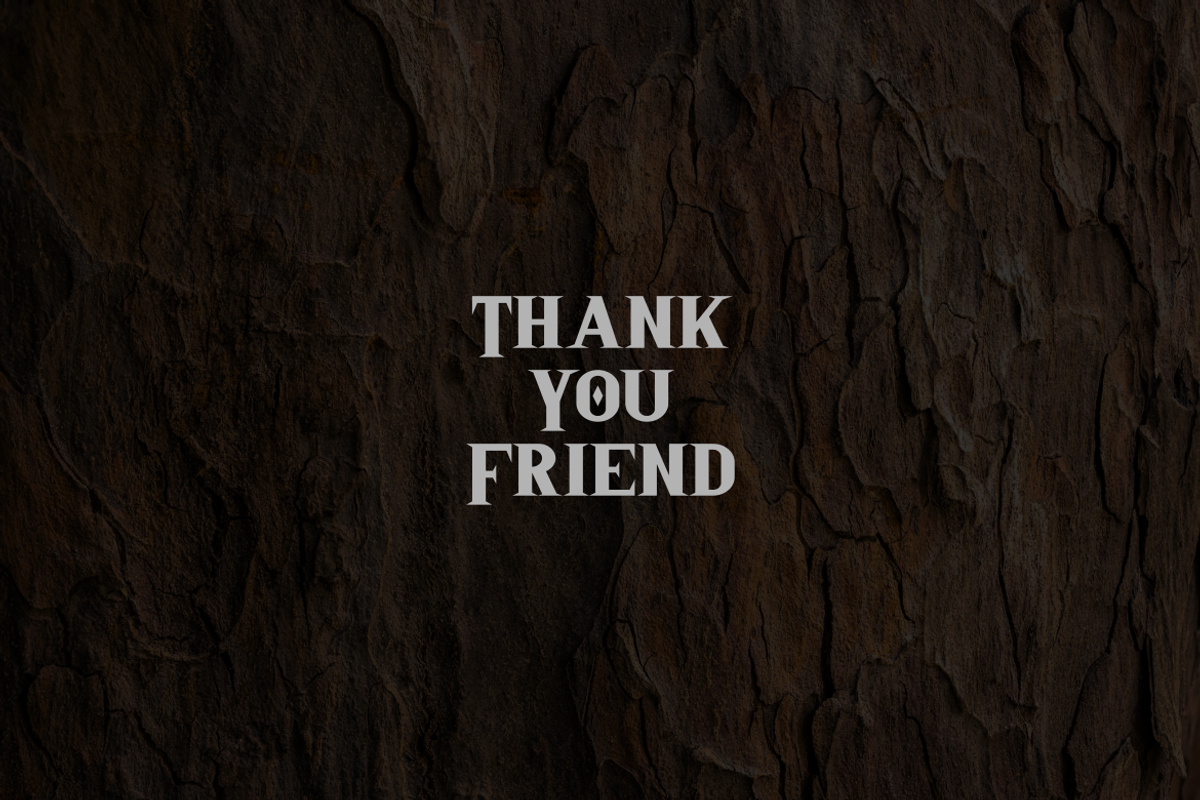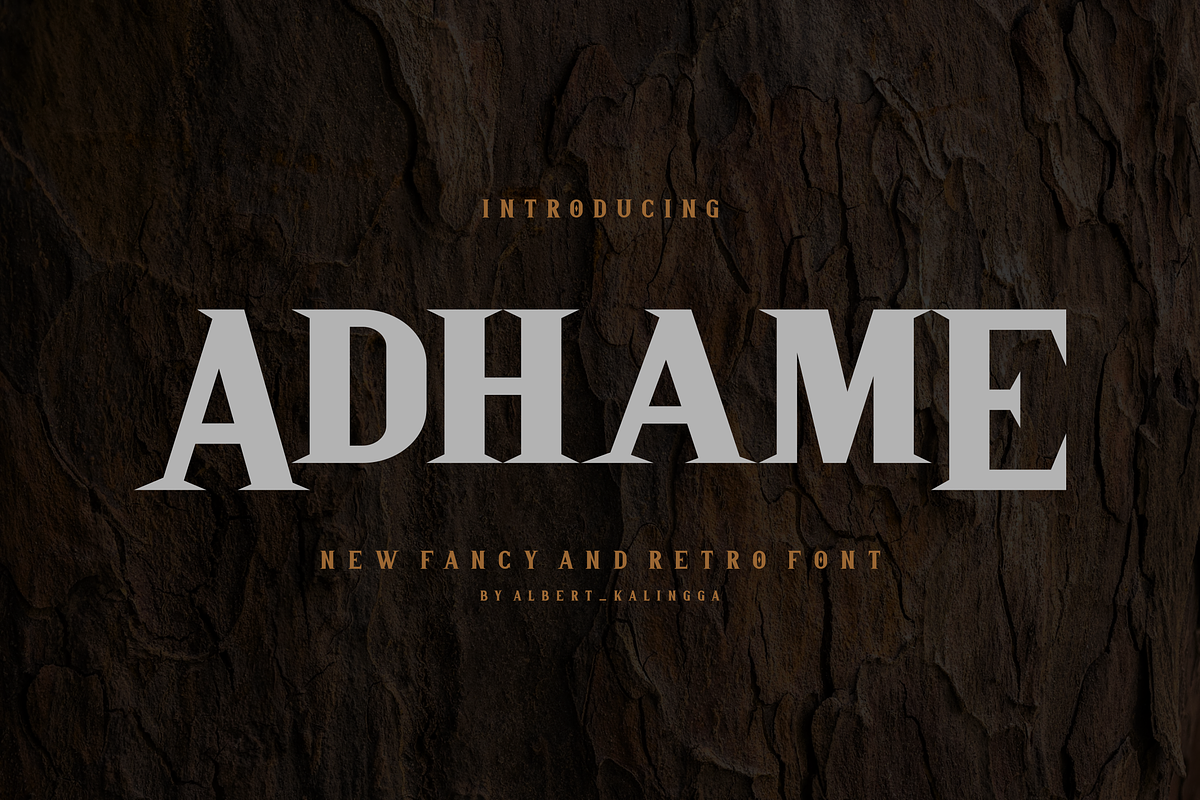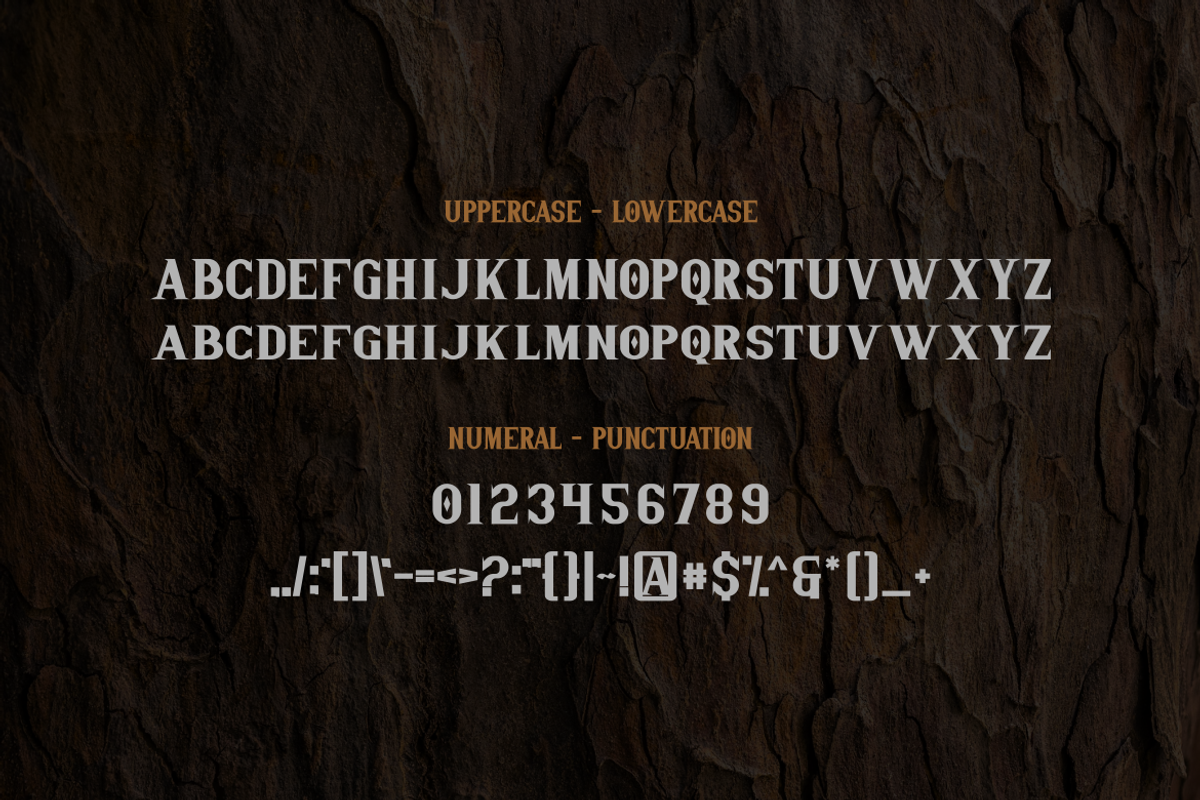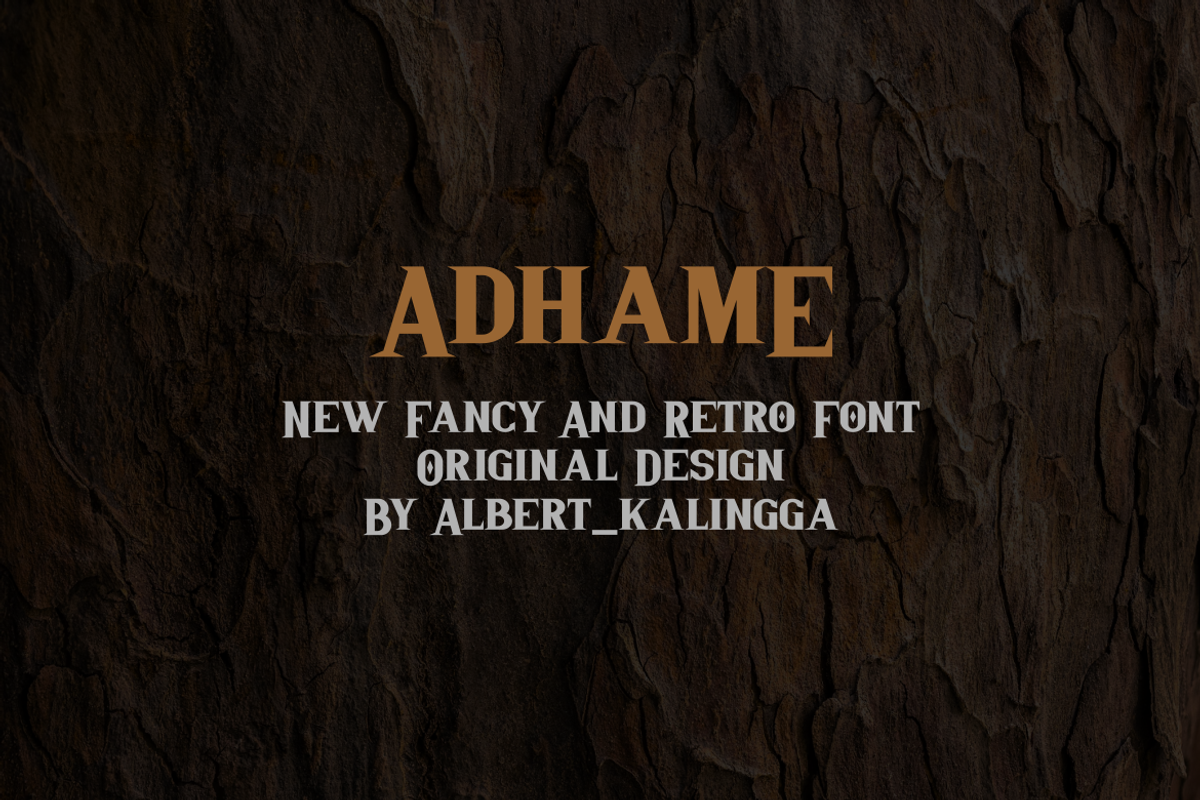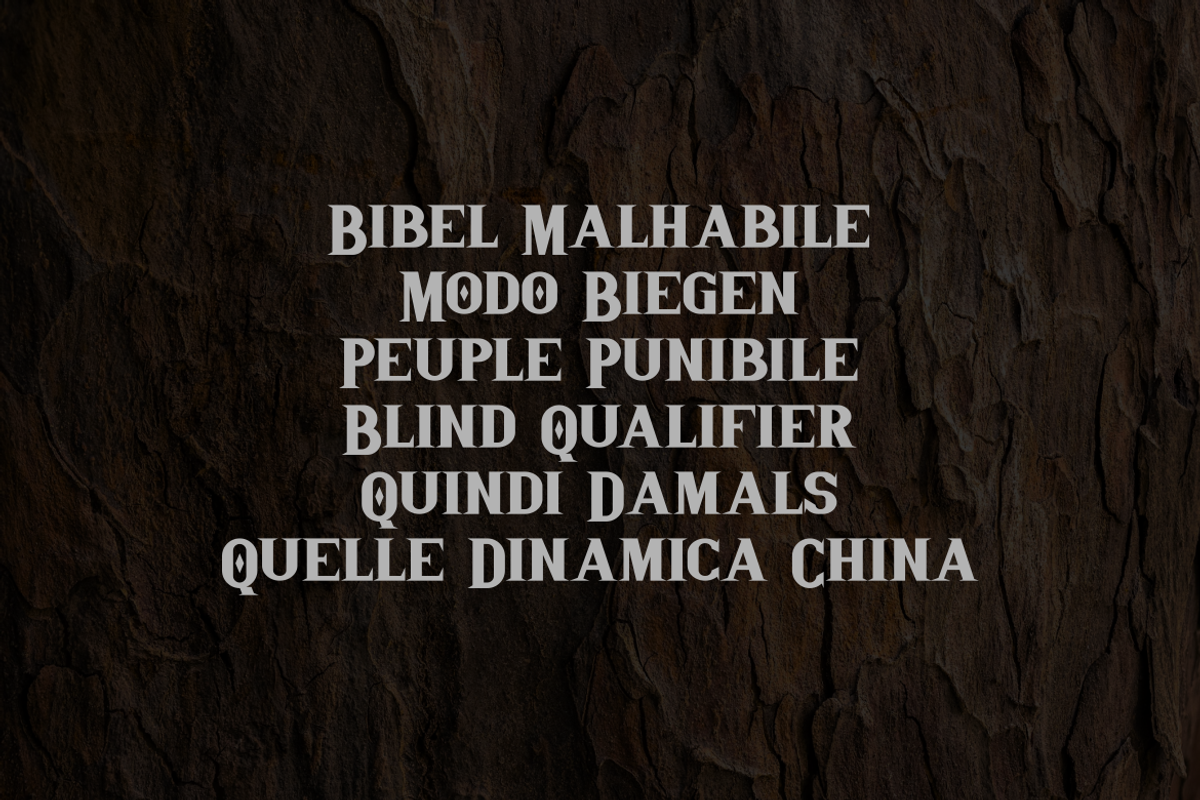
Adhame Font
Introducing our new product Adhame Font - Modern Font
Adhame Font - Modern Font is a bold and authentic display font. The font is suitable for any branding project like logo, esport, and many more. outstanding in a wide range of contexts.